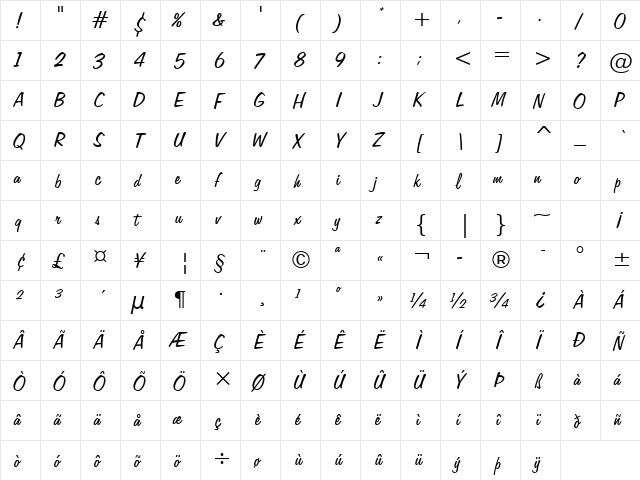
Freehand575 BT Regular Font Preview
Freehand575 BT Regular
Freehand575 BT Regular Font Details
Design Context for Freehand575 BT Typeface
Freehand575 BT brings a calligraphic fluidity to the page — its connecting strokes and expressive curves give it an unmistakably human quality.
Font Pairing: Combine Freehand575 BT with a simple geometric sans for maximum contrast — the tension between flowing curves and clean structure is a classic typographic pairing.
Pro Tip: Use Freehand575 BT for short runs of text — names, titles, or taglines. Extended body copy in script faces tires the eye quickly.